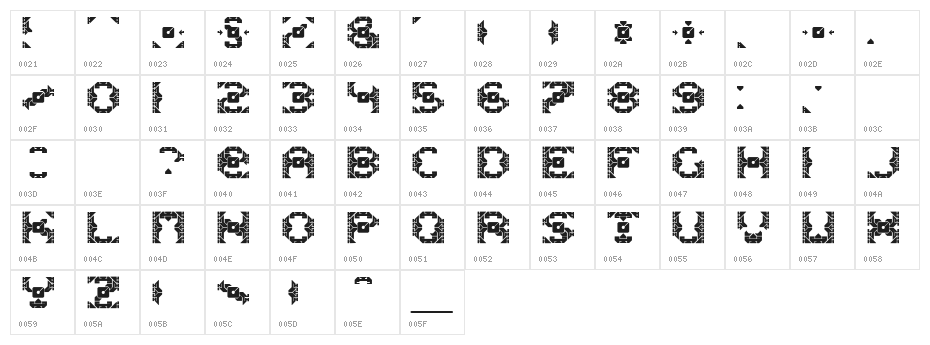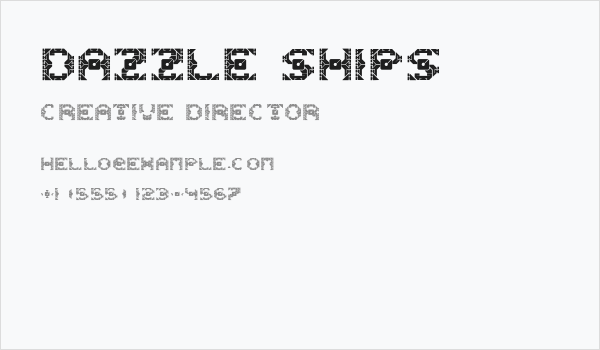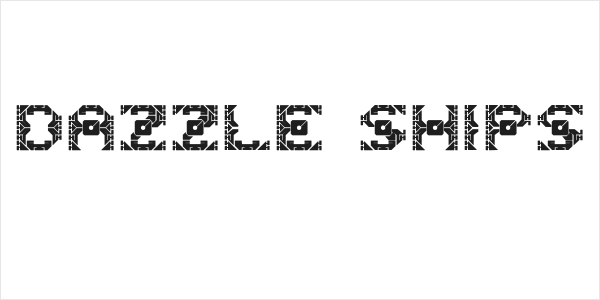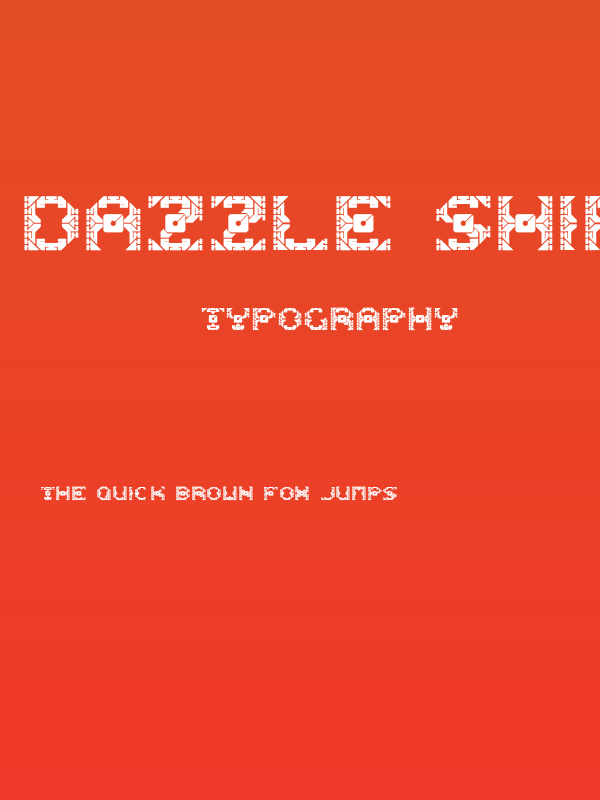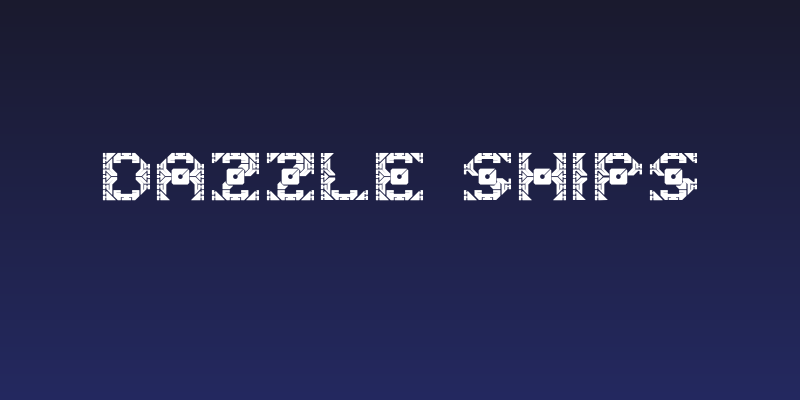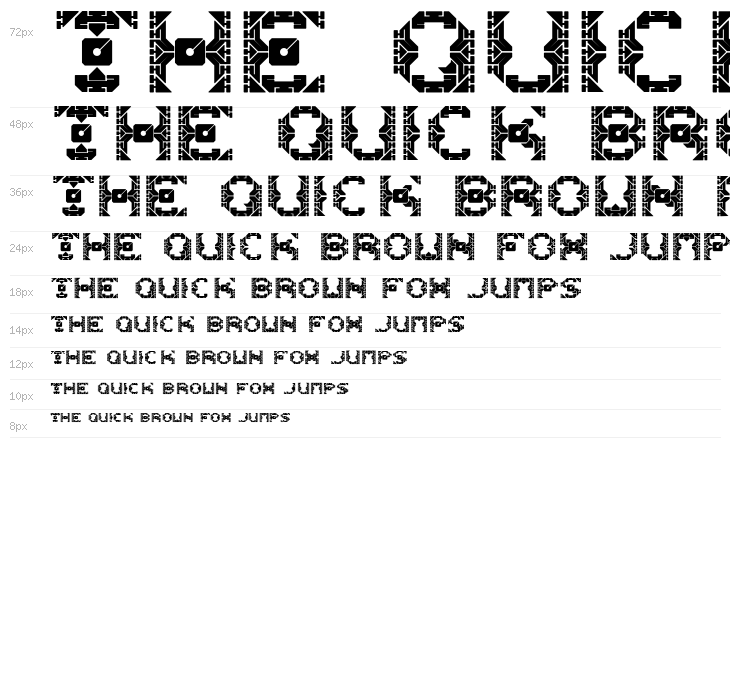
Dazzle Ships Font
Dazzle Ships Description
This font features a bold and intricate design with a geometric and abstract pattern filling each character. The letters are constructed with a series of angular shapes and lines, creating a visually striking and complex appearance. The style is reminiscent of camouflage or dazzle patterns, often used in military contexts to confuse and mislead. Each character maintains a consistent height and width, contributing to a uniform look despite the busy internal detailing. The font is highly decorative and not suited for body text due to its complexity, but it stands out for headlines or artistic projects.
| Proposed Projects | Ideal for artistic projects, military-themed designs, posters, and headlines where a bold statement is needed. |